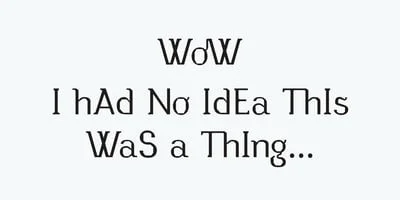
Suburban Font
Suburban Font is perfect for family-friendly neighborhood businesses, community center branding, residential real estate marketing, local school district materials, suburban shopping center signage, family restaurant identity, neighborhood newsletter designs, community event promotions, and welcoming social media content. This approachable typeface brings neighborhood warmth and community sophistication to both digital and print design applications.
Suburban Font is exciting because it embodies the comfortable familiarity and neighborly charm of suburban community life, making it an exceptional choice for designers who want to convey approachable reliability with authentic neighborhood appeal. Its friendly letterforms and community-minded character provide the perfect combination of suburban elegance and functional accessibility, ensuring your projects communicate trust, familiarity, and community excellence that resonates with audiences seeking genuine neighborhood experiences and family-oriented services.
The Suburban Font family includes community weight variations and neighborhood elements, featuring light, regular, medium, and bold weights with complementary friendly styles, community-inspired ligatures, and family-oriented decorative touches. Each style maintains consistent neighborhood aesthetics while offering flexibility for different community applications, allowing designers to create welcoming visual systems that reflect family values and suburban sophistication.
Whether you're designing for local businesses, community organizations, or family-focused projects, Suburban Font delivers authentic neighborhood appeal and community sophistication that connects with audiences seeking genuine family experiences and local excellence. This premium typeface offers designers the friendly elegance and community charm needed to create designs that communicate neighborhood trust, family values, and suburban authenticity effectively. The font's approachable character makes it perfect for community branding, family campaigns, and neighborhood applications where authentic local credibility is essential. Download Suburban Font today and community-fy your creative projects with genuine neighborhood sophistication and family typography excellence that defines suburban design standards.